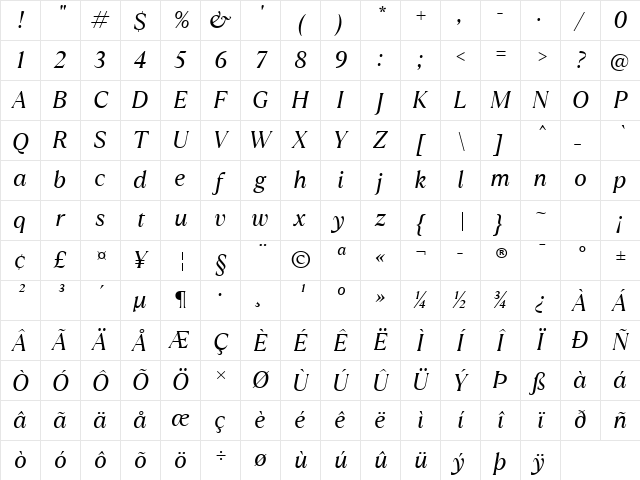
TT Ramillas Trl It
Style: It
Designer: TypeType
Design Context for TT Ramillas Trl
TT Ramillas Trl is a composed and adaptable typeface that performs quietly and consistently across a wide range of design contexts.